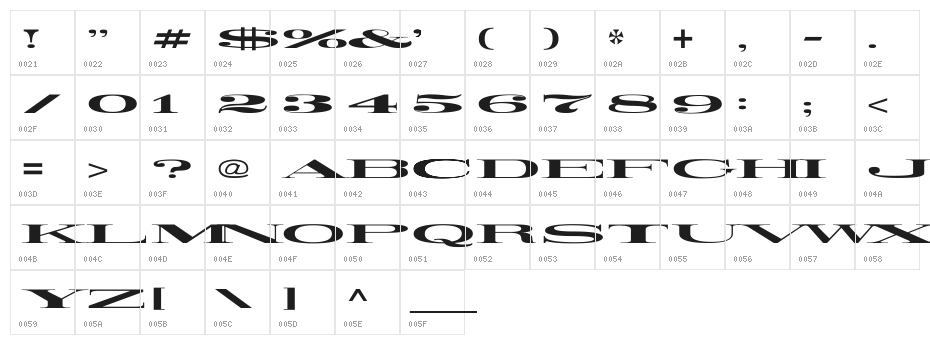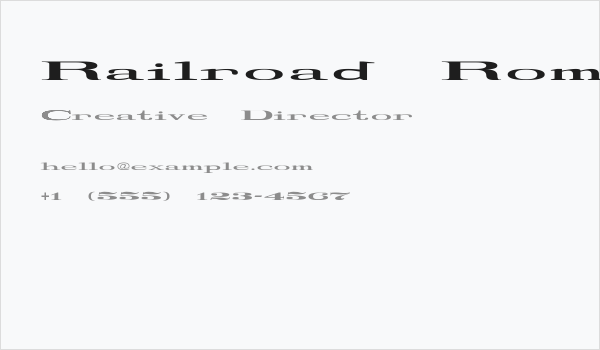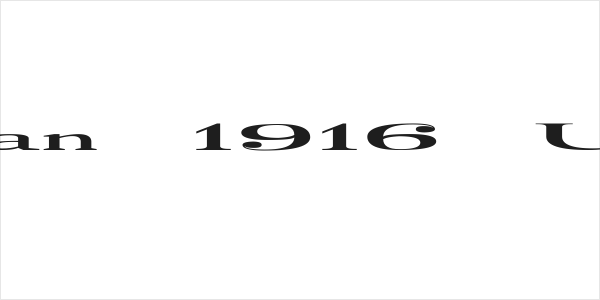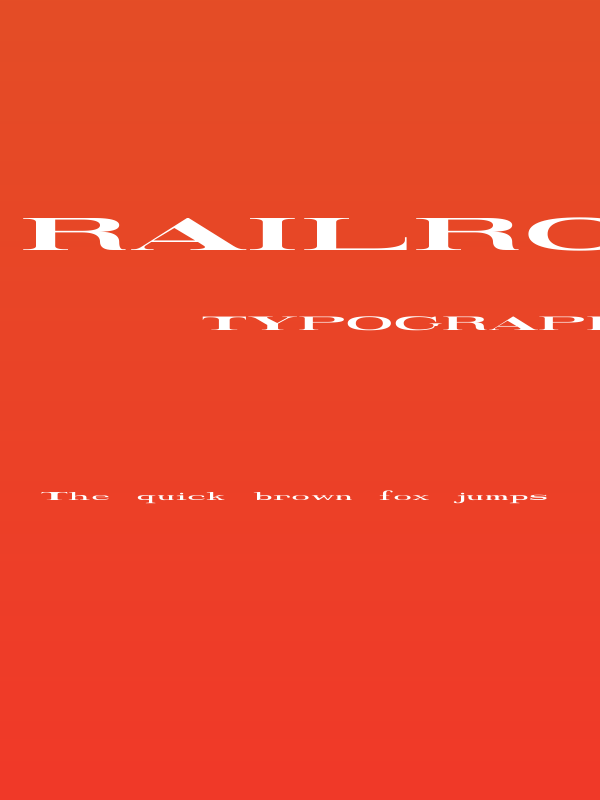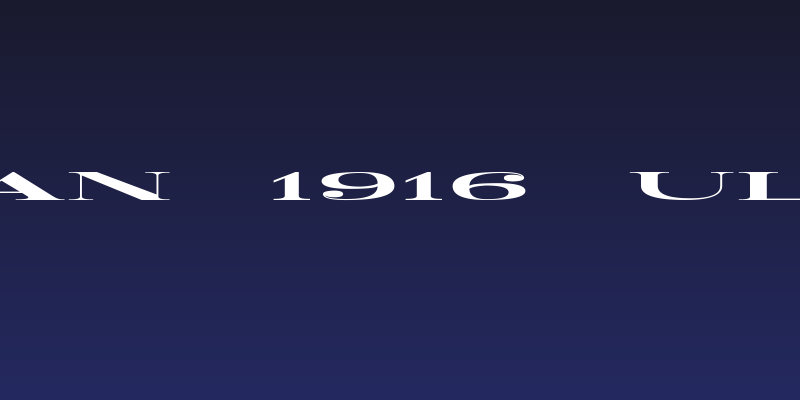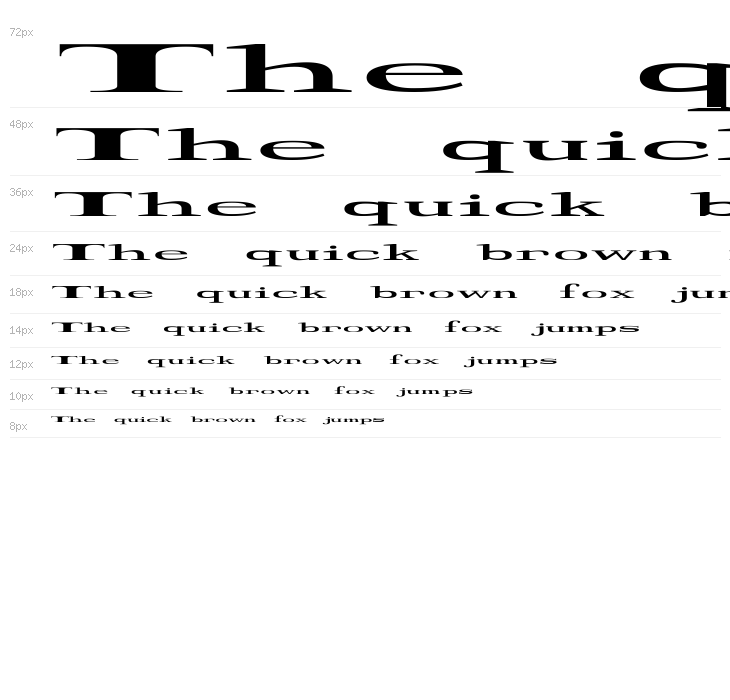
Railroad Roman 1916 Ultra-Expanded Font
Railroad Roman 1916 Ultra-Expanded Description
This font features a bold and striking design with ultra-expanded letterforms, giving it a commanding presence. The characters are crafted with high contrast between thick and thin strokes, enhancing its dramatic appeal. The serif style adds a touch of classic elegance, while the wide spacing between characters ensures readability even at smaller sizes. Its unique style makes it ideal for projects that require a strong visual impact, such as headlines, posters, and branding materials. The font's distinctive look is both timeless and versatile, suitable for a variety of design applications.
| Proposed Projects | Ideal for headlines, posters, branding, and any design needing a strong visual impact. |